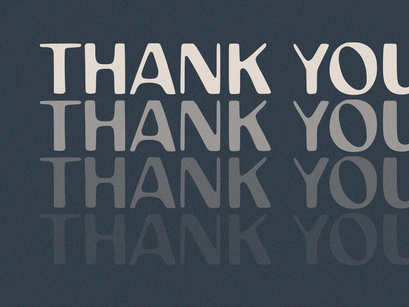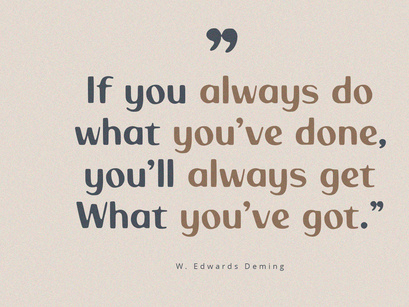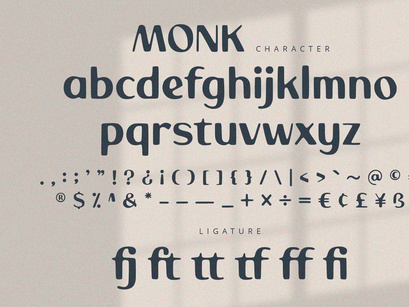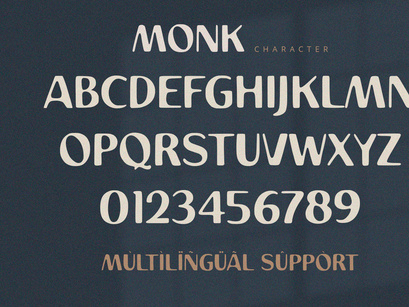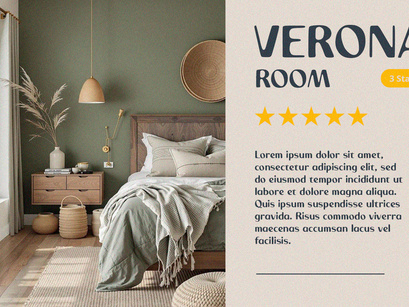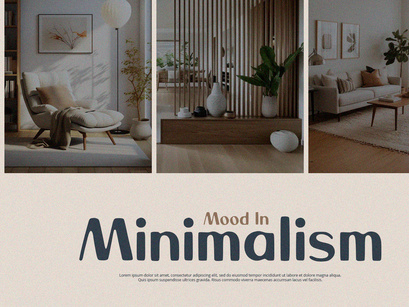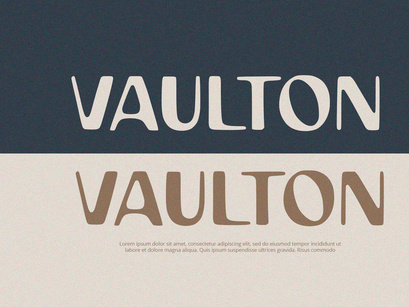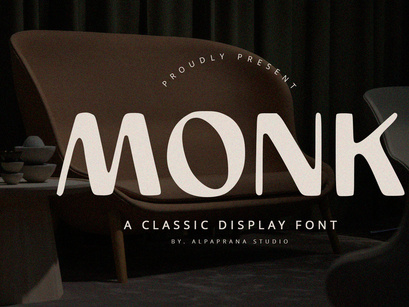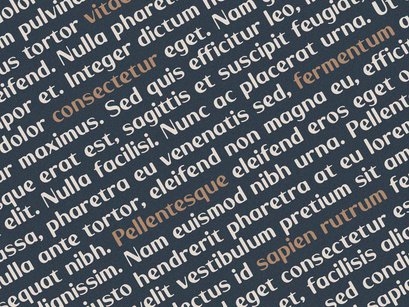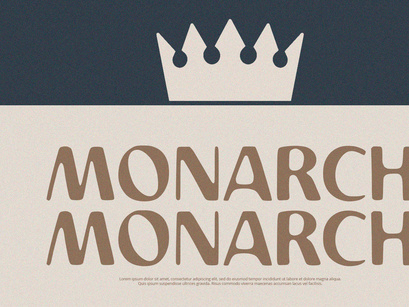
Monk - Display FontPremium
Monk is display font with bold and classic feels. It will be perfectly used for Branding, Logo Design, Lettering, Logotype, Clothing, Poster, magazine, packaging, posters, shopping bags, t-shirts, book covers, photography, special events and other design project.